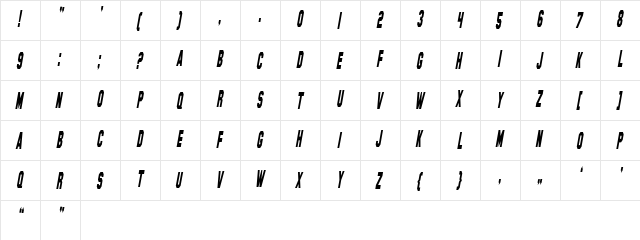
SF Hollywood Hills Condensed Italic
Design Context for SF Hollywood Hills Condensed Typeface
SF Hollywood Hills Condensed taps into classic Western woodtype traditions — bold, characterful, and impossible to ignore. The dynamic lean of this cut emphasises speed and emphasis in any layout.
Perfect for barbecue restaurants, country music branding, vintage poster design, and rustic packaging.
Font Pairing: Combine SF Hollywood Hills Condensed with a simple slab or neutral sans — period-accurate companions reinforce the vintage feel without competing for attention.
Pro Tip: Pair SF Hollywood Hills Condensed with aged textures or distressed backgrounds to amplify its vintage personality.